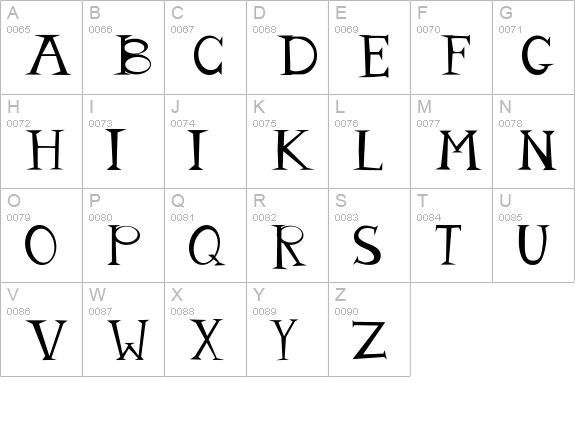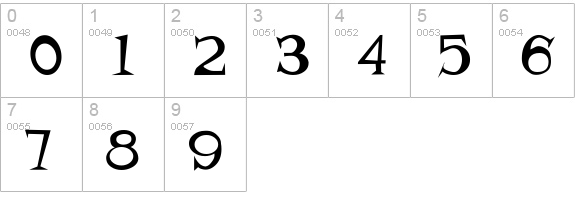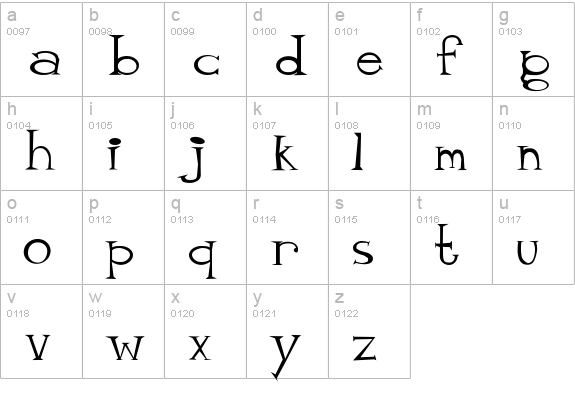
Mister_Tate font is a unique and versatile typeface that exudes elegance and sophistication. With its modern yet classic design, this font is perfect for a wide range of projects, from branding to editorial design. Its sleek lines and stylish curves make it a standout choice for any design need. What makes Mister_Tate font even more appealing is that it is available for free download at FontsMarket.com. You can easily access this stunning font and incorporate it into your projects without any hassle. Whether you're a professional designer looking for a fresh addition to your font collection or a hobbyist wanting to experiment with new typography, Mister_Tate font is the perfect choice. Download it today and elevate your design projects to the next level.